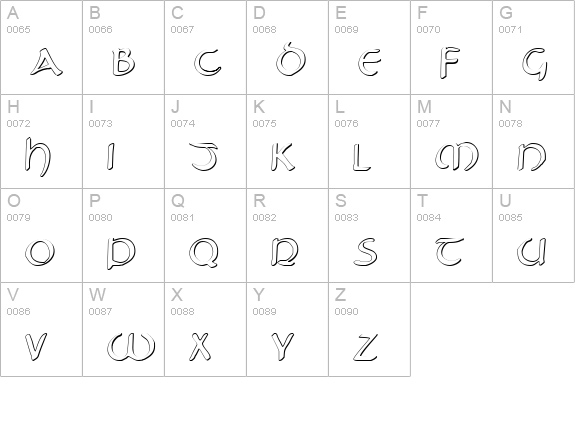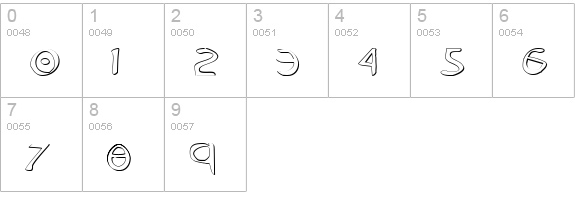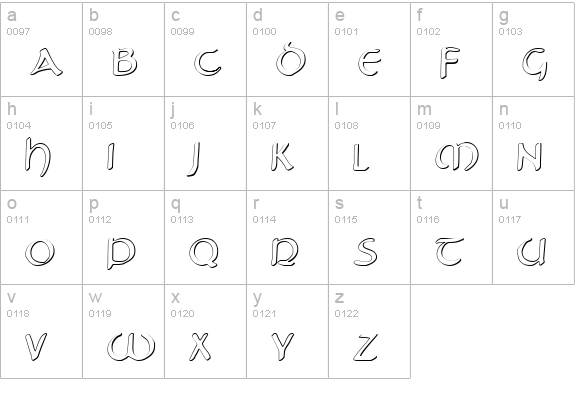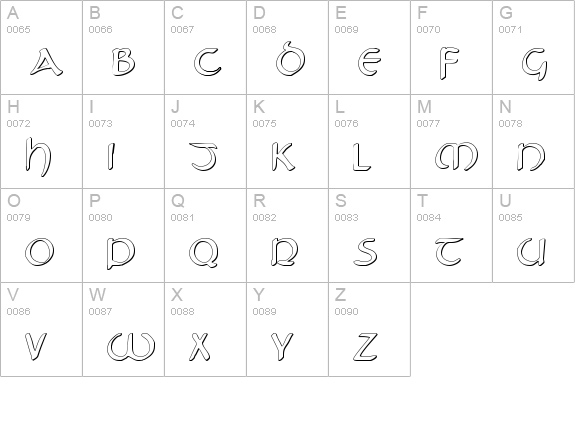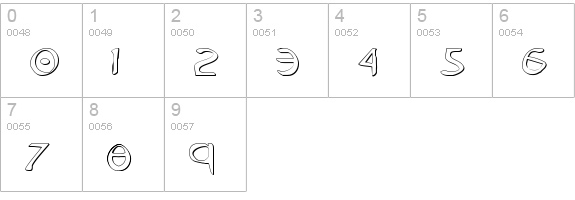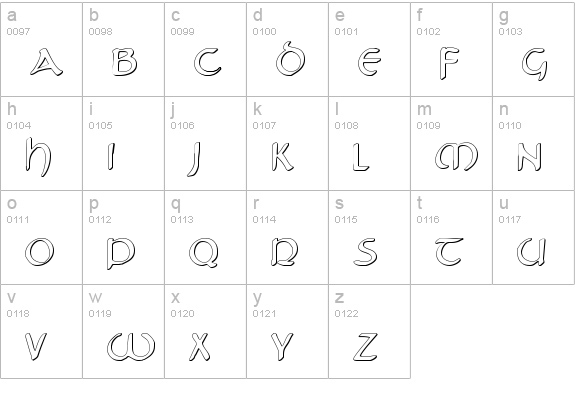
Tristram Shadow Font Details
Introducing Tristram Shadow font, a captivating display typeface that effortlessly balances elegance with a touch of mystery. This unique font features intricate shadow detailing that adds depth and dimension to each character, making it perfect for creating eye-catching headlines, logos, and branding materials. The Tristram Shadow font exudes a sense of sophistication and intrigue, making it ideal for projects that require a hint of drama. What sets Tristram Shadow font apart is not only its striking design but also the fact that it is available for free download at FontsMarket.com. This means that you can easily add this stunning typeface to your design arsenal without breaking the bank. Whether you're working on a personal project or a client commission, Tristram Shadow font is sure to elevate your work and leave a lasting impression. Don't miss out on the opportunity to enhance your designs with the captivating Tristram Shadow font. Download it for free today at FontsMarket.com and start creating stunning visuals that stand out from the crowd.